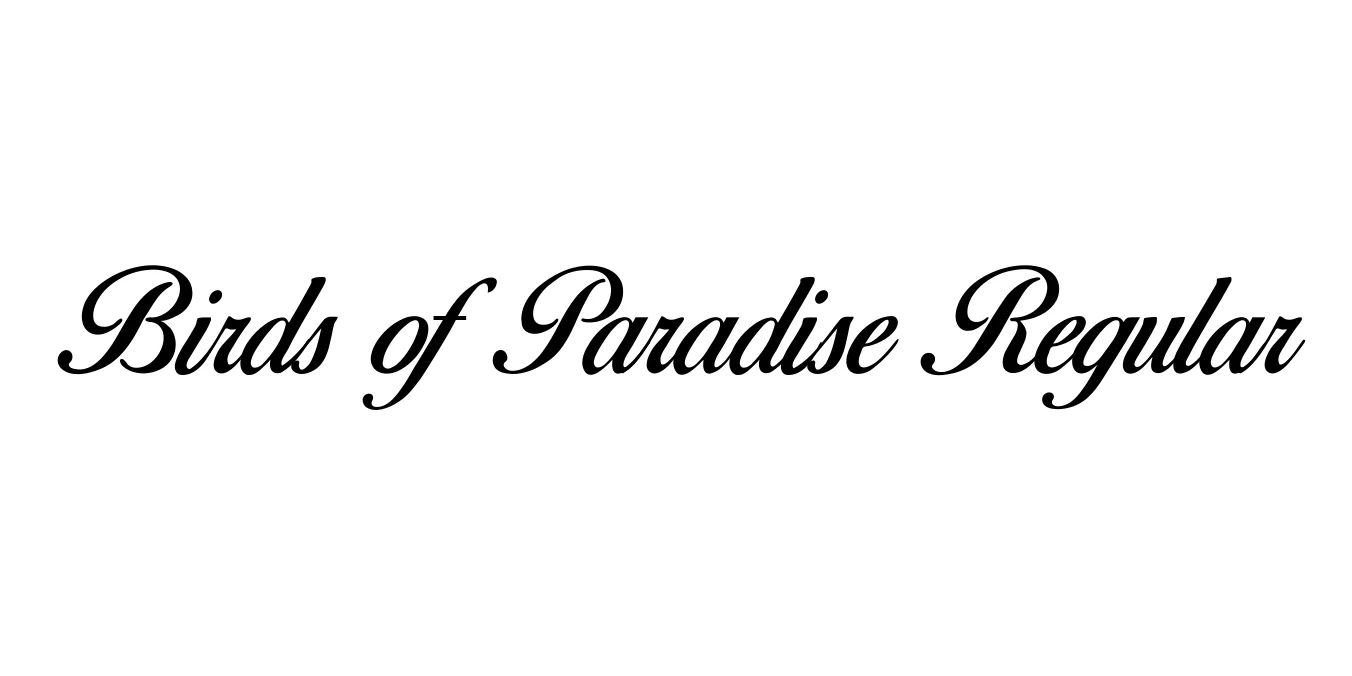
Birds of Paradise Regular
Birds of Paradise Regular is a sophisticated and fluid script typeface created by the renowned Swedish type designer Mans Greback. Known for its graceful curves and professional calligraphic feel, this font was designed to evoke a sense of high-end elegance and luxury. It features sweeping swashes and high-contrast strokes that provide a rhythmic, handwritten aesthetic suitable for formal occasions.
Since its release, the font has become a favorite among graphic designers for projects that require a touch of class and distinction. Its timeless appeal makes it particularly effective in the wedding industry, high-fashion branding, and editorial design. The typeface reflects a modern interpretation of traditional copperplate scripts, ensuring legibility while maintaining a decorative flourish.
Birds of Paradise Regular Best Uses
Ideal for invitations, RSVP cards, and elegant place settings.
Perfect for luxury logo designs and high-end fashion identity.
Excellent for creating eye-catching quotes and decorative overlays.
Adds a personal and sophisticated touch to holiday and birthday cards.